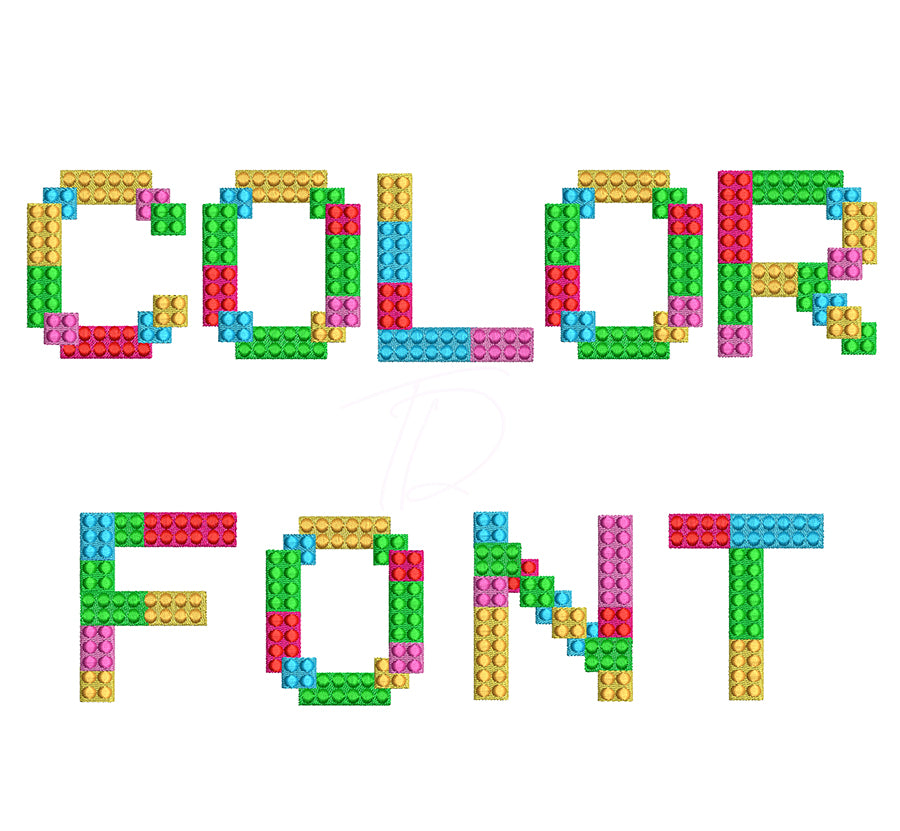
Lego embroidery font. Colorful toy embroidery font. Embroidery alphabet in Lego shape. BX format
Colorful toy embroidery font.
This font comes with letters in 3 sizes, A-Z (Upper case)